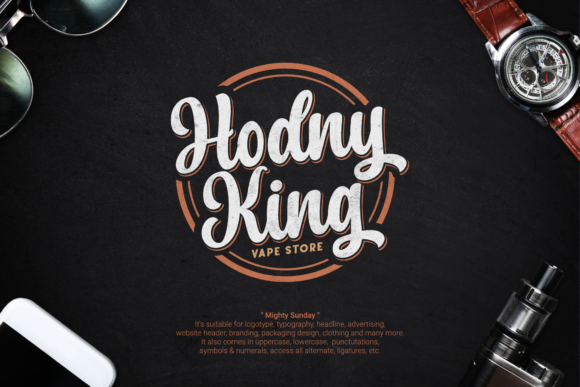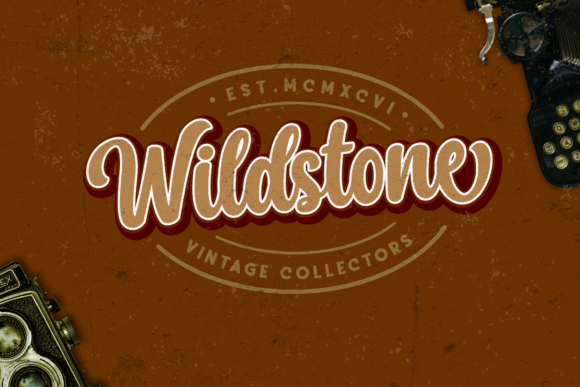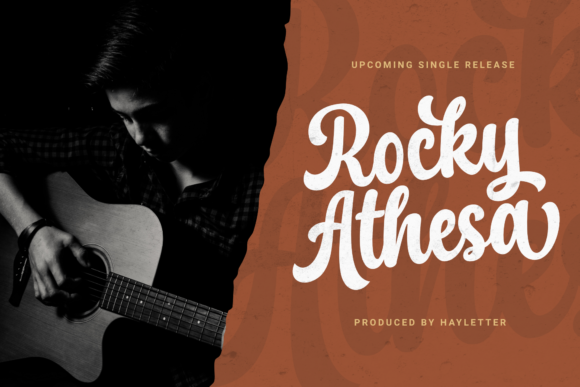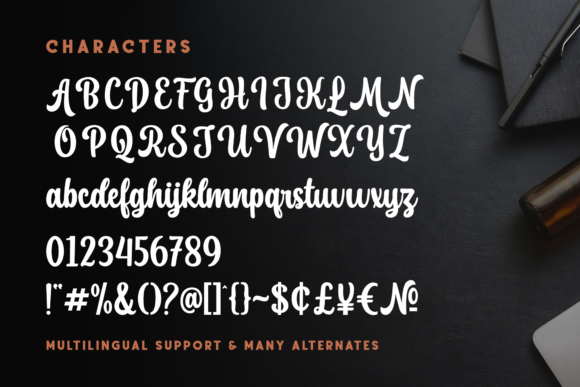
About Mighty Sunday Font
Mighty Sunday is a modern and bold script font. Each letter has a unique and beautiful touch, which will bring your designs to life! This font is PUA encoded which means you can access all of the glyphs and swashes with ease!